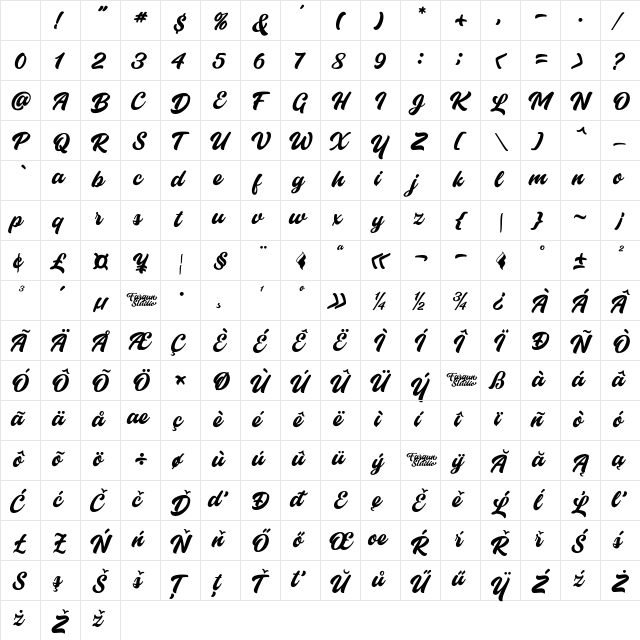
Complete Historia Script DEMO Regular glyph index. Displaying only characters natively supported by Historia Script DEMO Regular font.
Historia Script DEMO flows with the natural rhythm of handwritten lettering, making it ideal for designs that call for warmth and personal expression.
Font Pairing: Combine Historia Script DEMO with a simple geometric sans for maximum contrast - the tension between flowing curves and clean structure is a classic typographic pairing.
Pro Tip: Use Historia Script DEMO for short runs of text - names, titles, or taglines. Extended body copy in script faces tires the eye quickly.